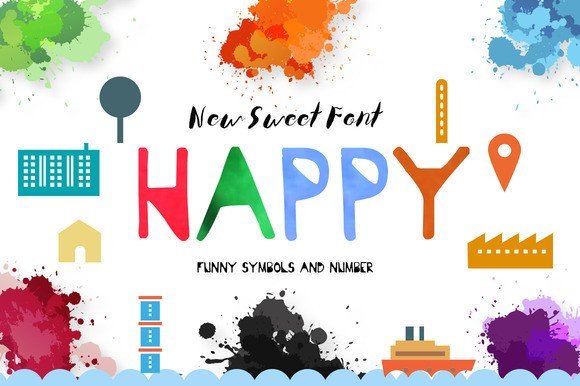
The Joy of Design: Introducing Happy Font
Have you ever found yourself stuck in a creative rut, staring at a blank screen with no inspiration in sight? It’s a frustrating feeling that we’ve all been there at some point or another. But what if I told you that a simple change in font could be the key to unlocking your next big design idea?
Enter Happy Font, a new and playful font that’s perfect for adding a touch of whimsy to your designs. With its funny symbols and numbers, Happy Font is designed to bring a smile to your face and a pop of color to your creations. Whether you’re a seasoned designer or just starting out, Happy Font is a valuable tool that’s sure to make your design process more fun and engaging.
Key Features of Happy Font
- Font Family: Happy Font is a sans-serif font family, designed to evoke a sense of happiness and friendliness.
- Character Set: Includes a comprehensive set of characters, including Latin, Greek, and Cyrillic alphabets, as well as punctuation and symbols.
- Unique Characteristics: Features a unique, rounded design with a subtle smile-like curve, creating a friendly and approachable feel.
Happy Font Review
As a designer, I was excited to try out the Happy Font. Overall, I have mixed feelings about this font.
- The font has a unique and playful personality that could add a lot of character to certain designs.
- The font is highly customizable, with many options for adjusting the size, color, and style.
- The font is also very legible, making it suitable for both digital and print applications.
- The font may not be suitable for more formal or professional designs, as it can come across as too casual or playful.
- The font’s customization options can be overwhelming, making it difficult to achieve a cohesive look.
- The font may not be as versatile as some other fonts on the market, limiting its applications.
The Happy Font is a fun and creative option that can add a lot of personality to certain designs. However, it may not be the best choice for more formal or professional applications. With some careful planning and customization, the Happy Font can be a great addition to any design project.
Getting the Most Out of Happy Font
Here are some tips for getting the most out of Happy Font:
- Use Happy Font for headings and titles to add a playful touch
- Combine Happy Font with other fonts for a unique and creative look
- Experiment with different font sizes and colors to add emphasis
Here are some common use cases for Happy Font:
- Social media posts and ads
- Marketing materials (e.g. flyers, brochures)
- Blog posts and articles
- Presentations and slides
Alternatives to Happy Font for Designers
Lato is a popular sans-serif font that conveys a sense of friendliness and approachability. It’s ideal for use in headings and body text, particularly in digital applications. Compared to Happy Font, Lato has a more modern and sleek feel, making it suitable for a wider range of design projects.
Open Sans is a clean and legible sans-serif font that works well in both print and digital media. It’s a great choice for body text and is particularly effective when used in long blocks of text. Unlike Happy Font, Open Sans has a more neutral tone, making it suitable for a variety of design projects, from corporate to creative.
Montserrat is a geometric sans-serif font that’s perfect for use in headings and titles. Its bold and modern feel makes it ideal for urban and edgy design projects. Compared to Happy Font, Montserrat has a more dramatic and attention-grabbing quality, making it suitable for projects that require a strong visual statement.